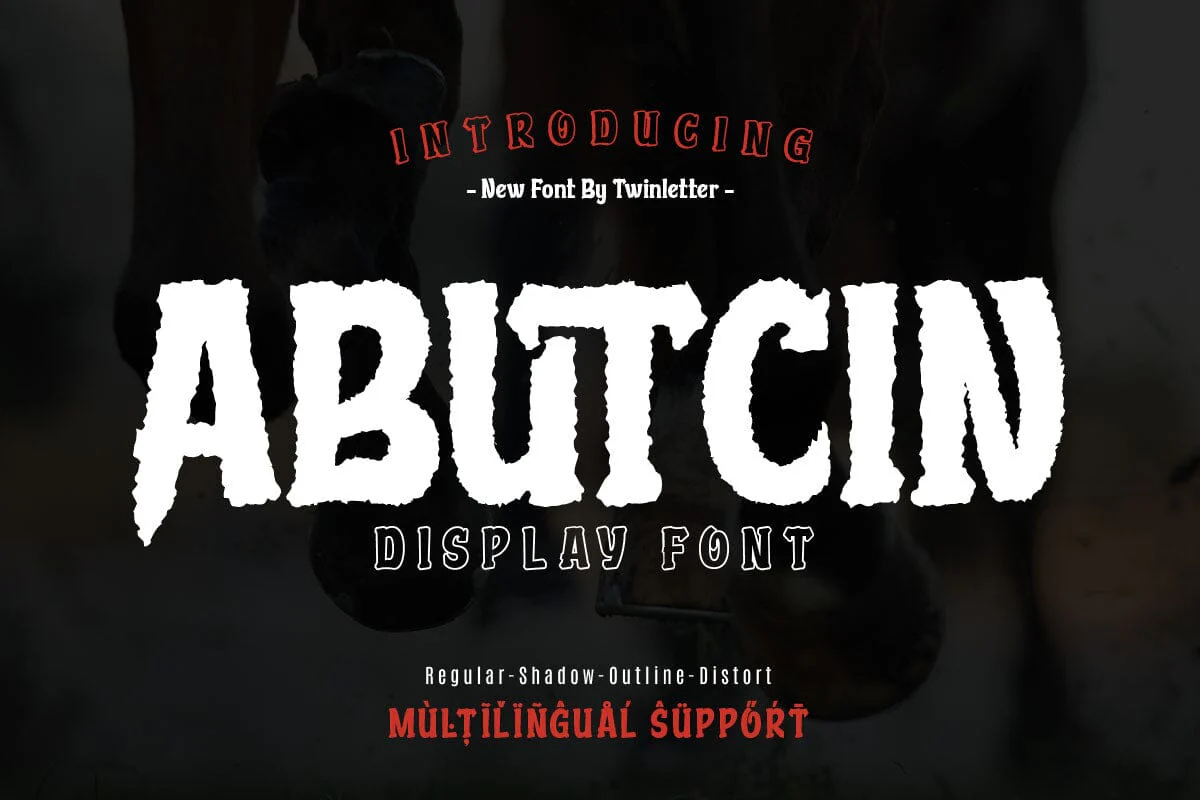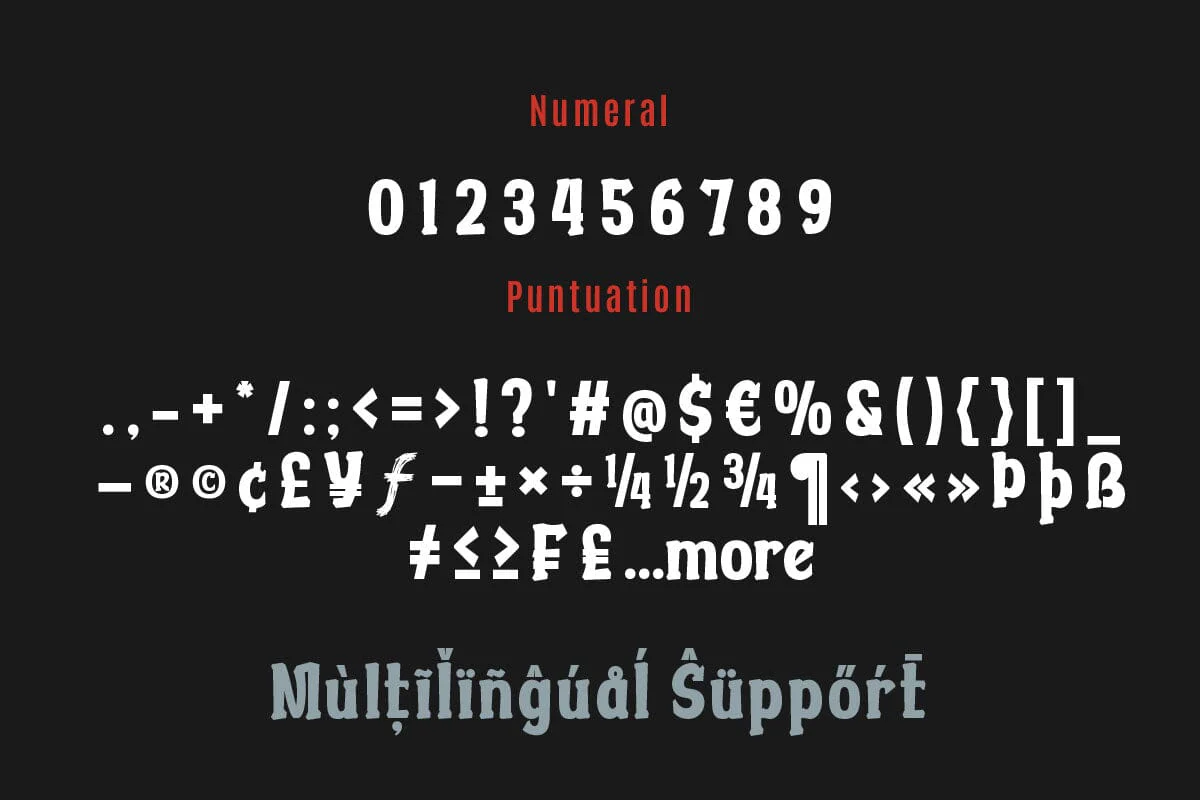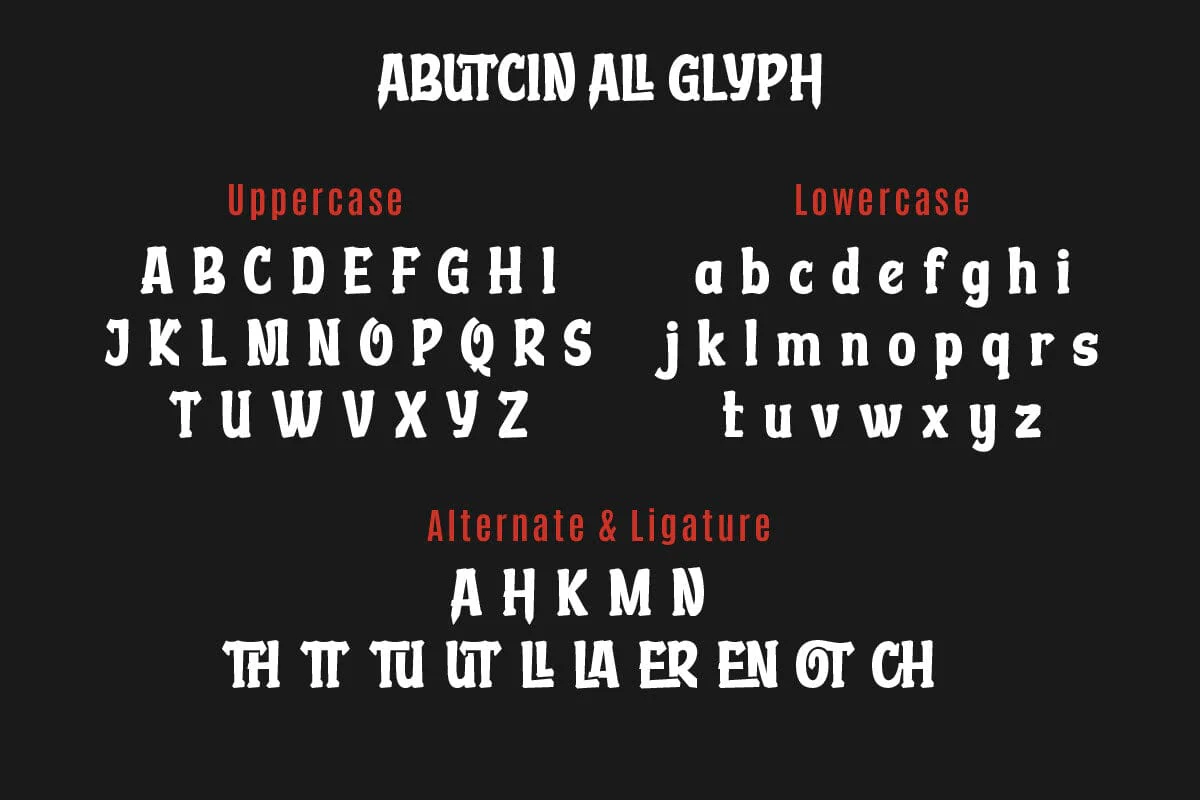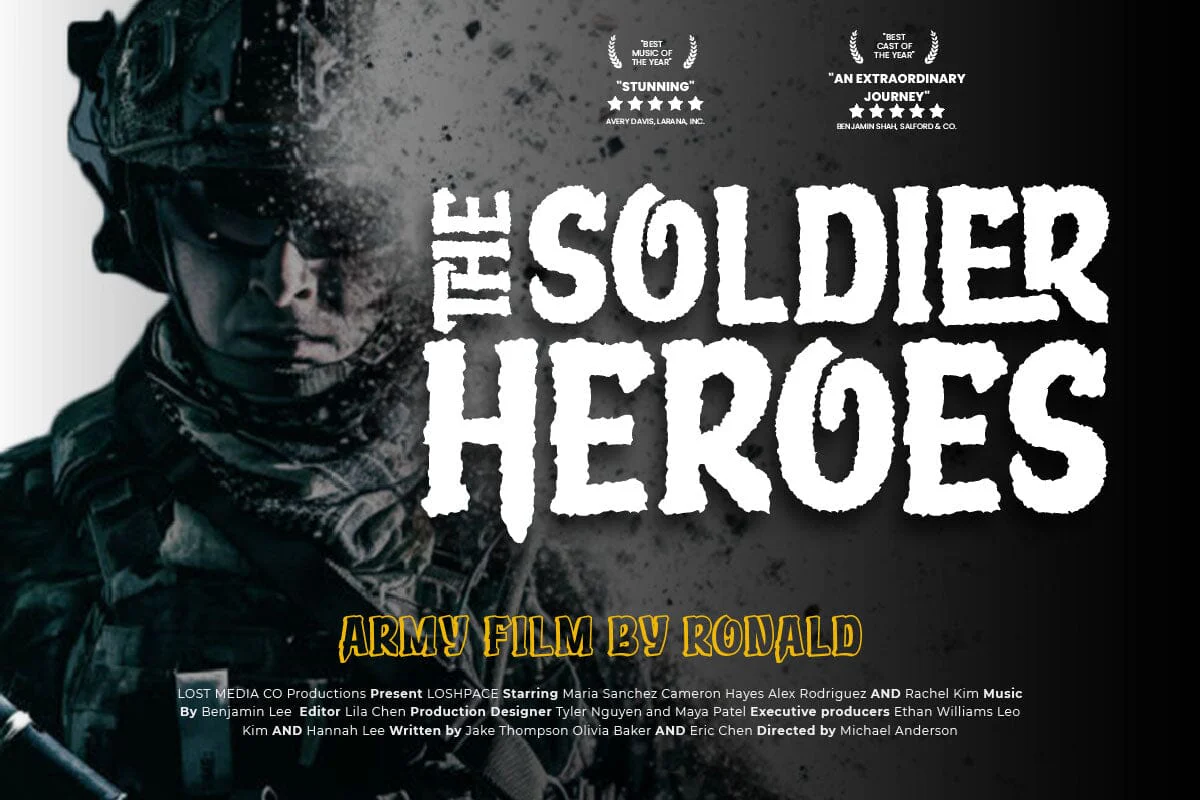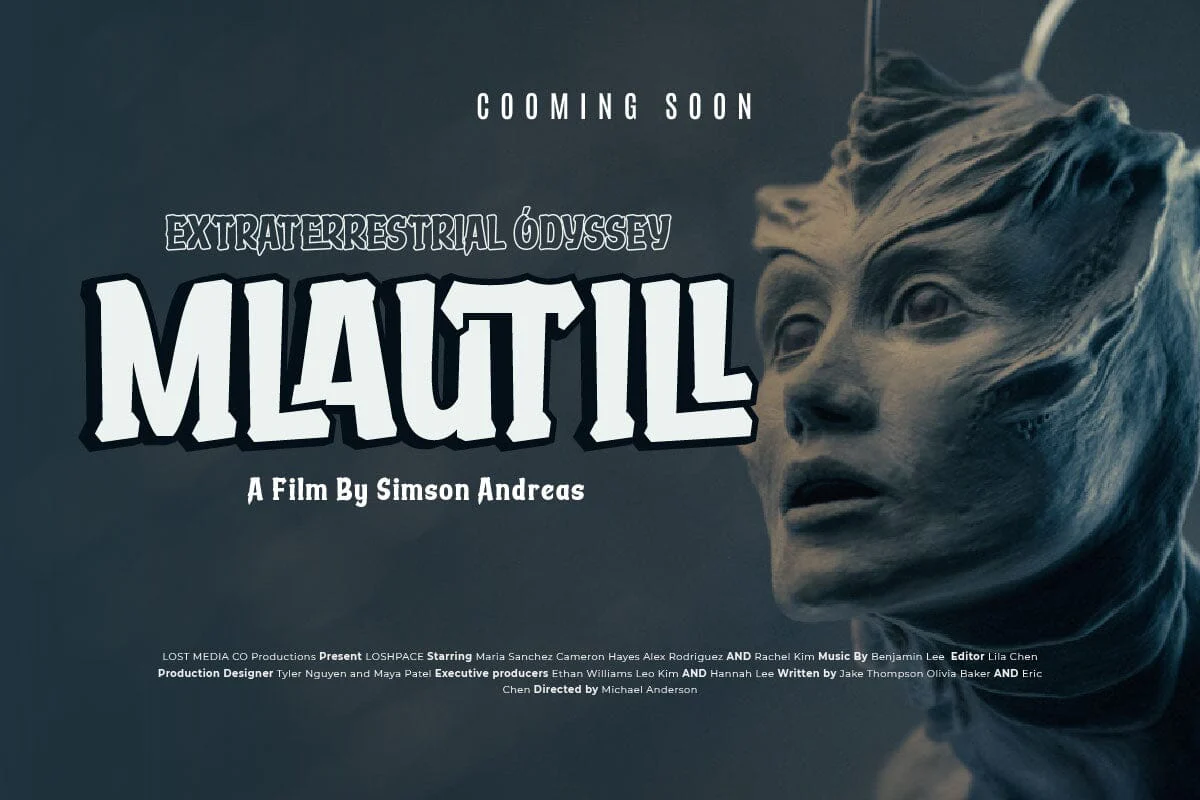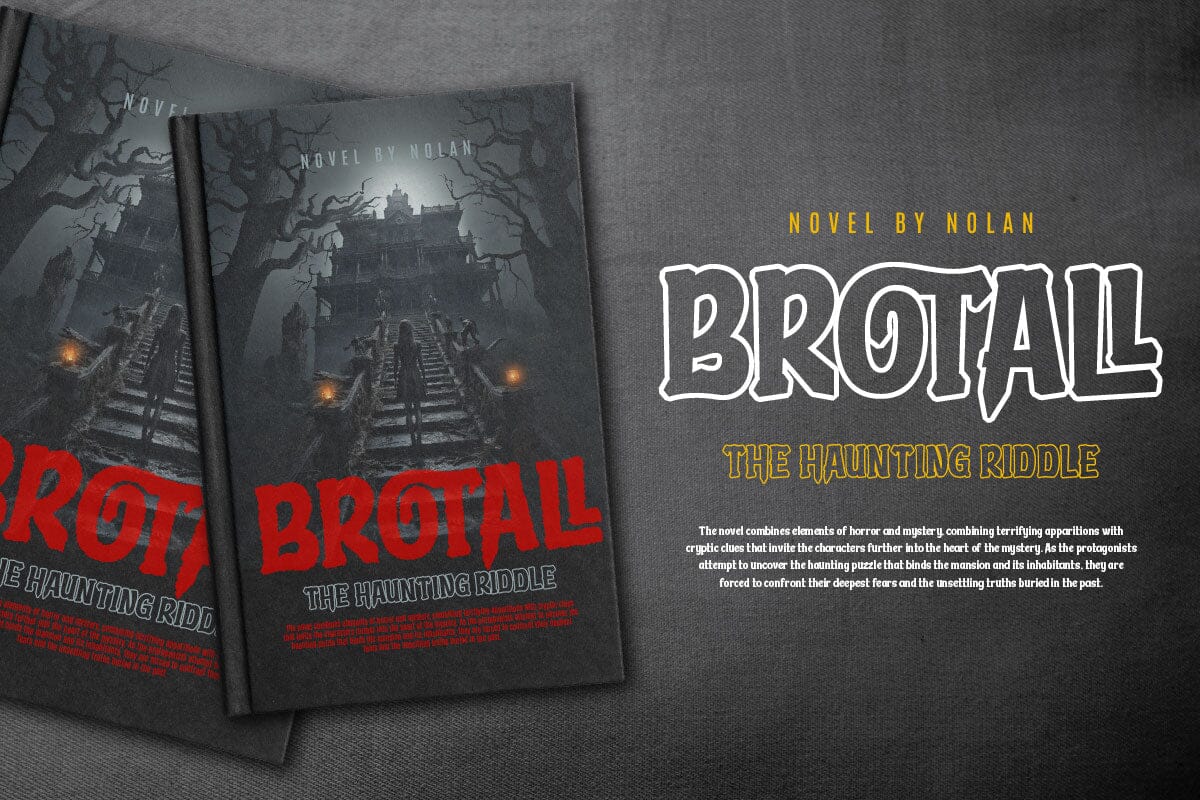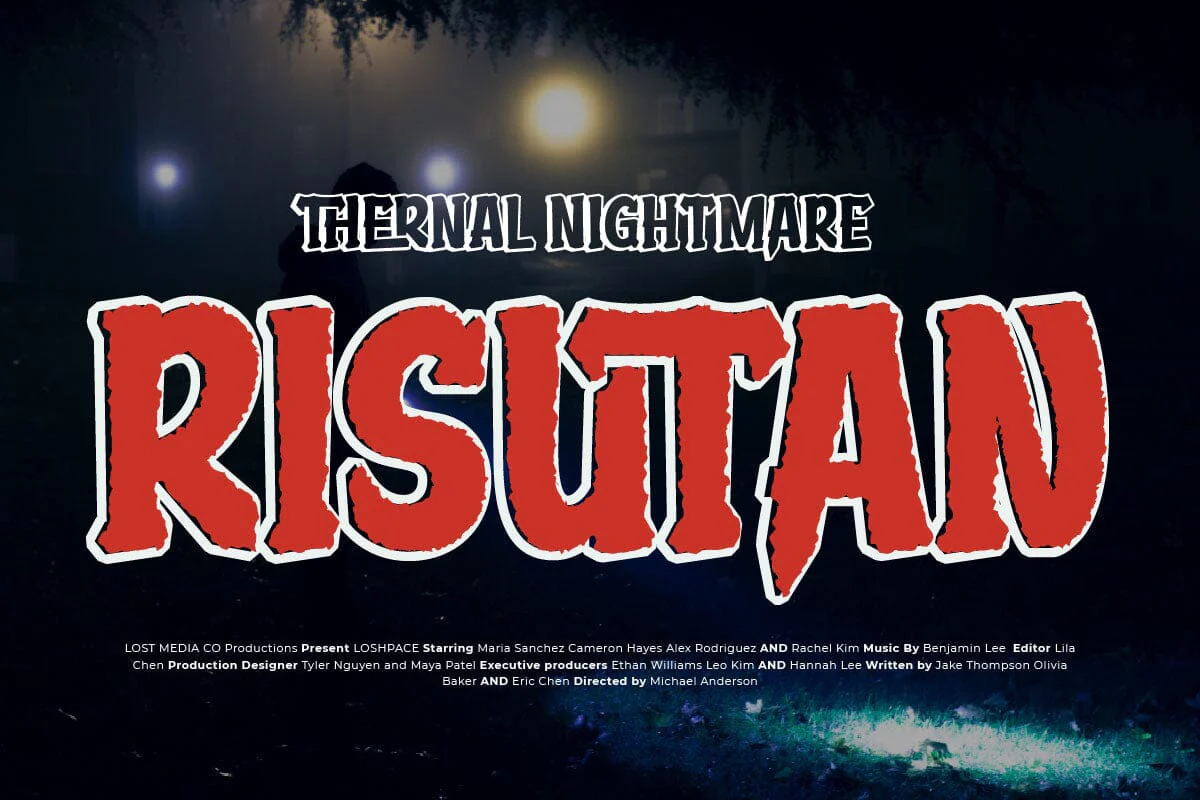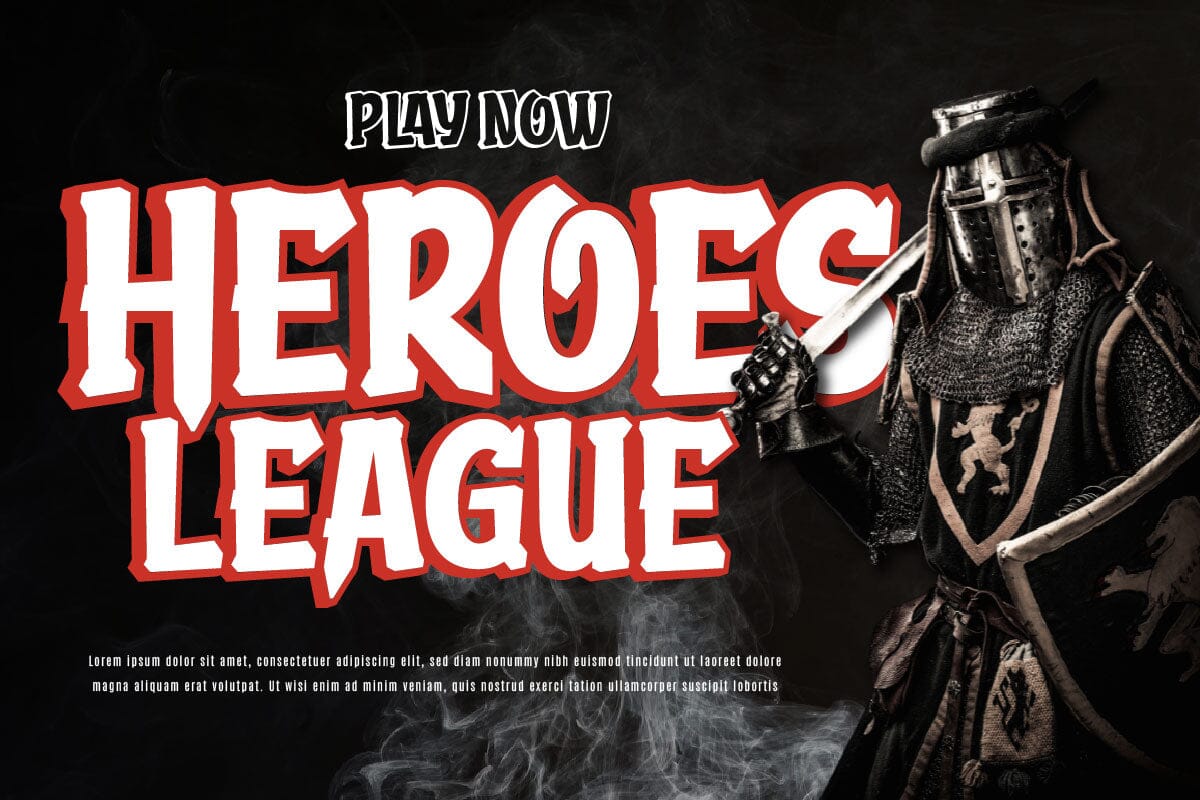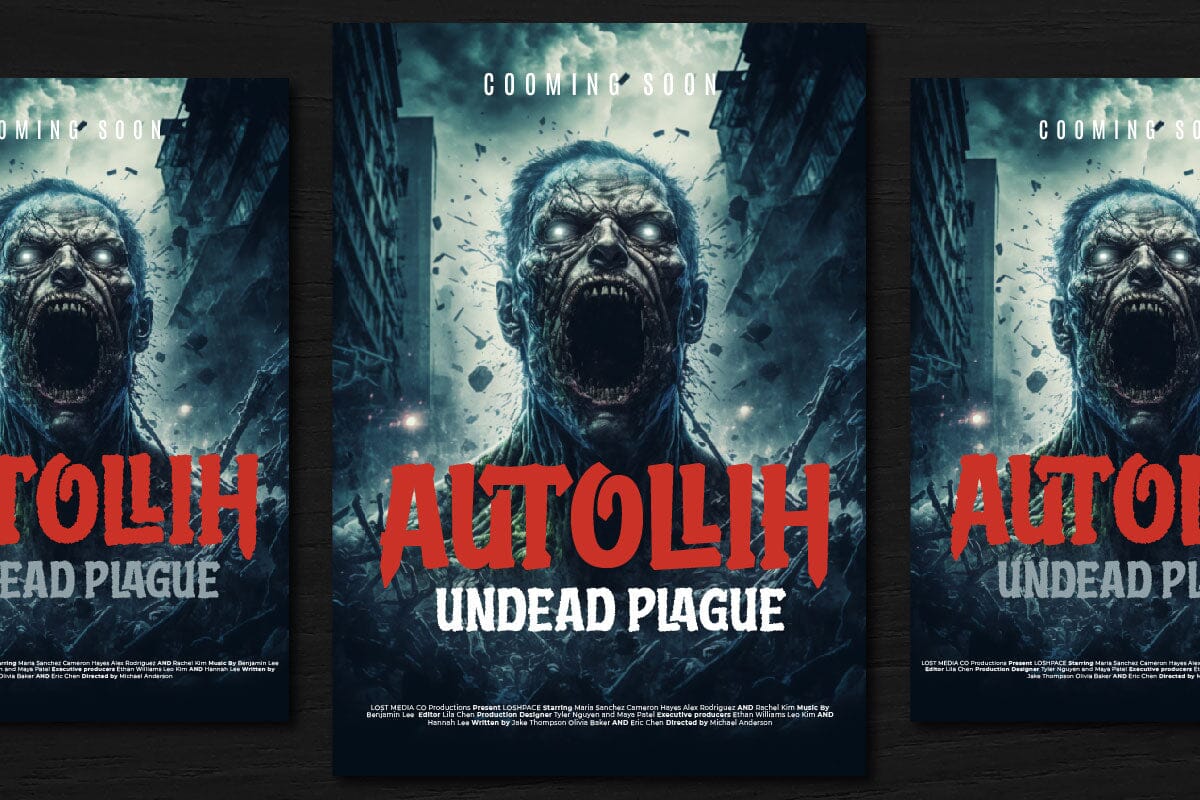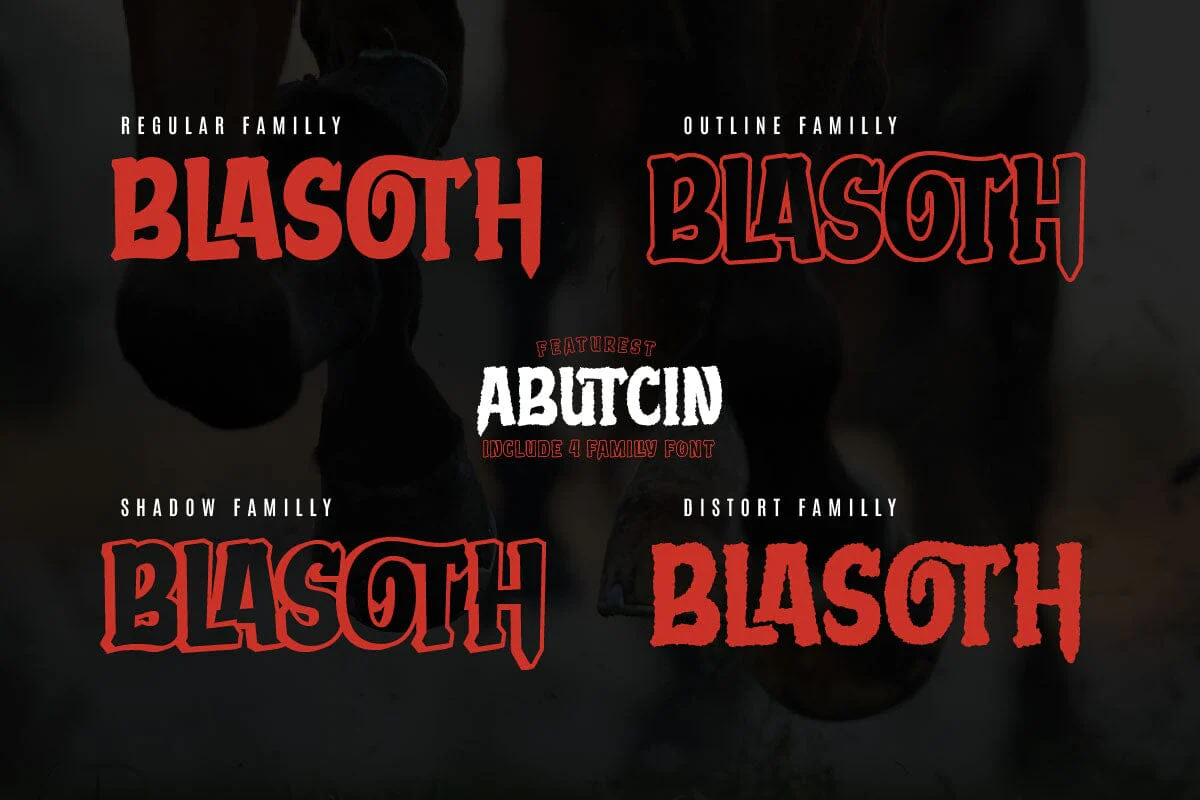
Abutcin - Movie Display Font
Abutcin is a display typeface specifically designed to create a cinematic and dramatic look in design projects related to the world of film. This font combines modern elements with an artistic touch, creating a strong and compelling character.
Each letter in Abutcin has a dramatic design with bold lines and eye-catching contours. This font conveys a sense of boldness and elegance, ideal for use in film titles, posters, or other promotional materials that require a stunning visual effect.
Abutcin's color palette may tend to include contrasting, intense colors, such as black, dark red, or navy, to add an element of drama and mystery to the look. This font is suitable for creating an atmosphere that suits various film genres, from thriller to action or drama.
Abutcin is designed to provide a professional touch to film design projects. With a dramatic and bold design, this font provides a strong impression and strong visual effect, making it a suitable choice for creating striking design elements in a cinematic world.
Abutcin is a display typeface specifically designed to create a cinematic and dramatic look in design projects related to the world of film. This font combines modern elements with an artistic touch, creating a strong and compelling character.
Each letter in Abutcin has a dramatic design with bold lines and eye-catching contours. This font conveys a sense of boldness and elegance, ideal for use in film titles, posters, or other promotional materials that require a stunning visual effect.
Abutcin's color palette may tend to include contrasting, intense colors, such as black, dark red, or navy, to add an element of drama and mystery to the look. This font is suitable for creating an atmosphere that suits various film genres, from thriller to action or drama.
Abutcin is designed to provide a professional touch to film design projects. With a dramatic and bold design, this font provides a strong impression and strong visual effect, making it a suitable choice for creating striking design elements in a cinematic world.